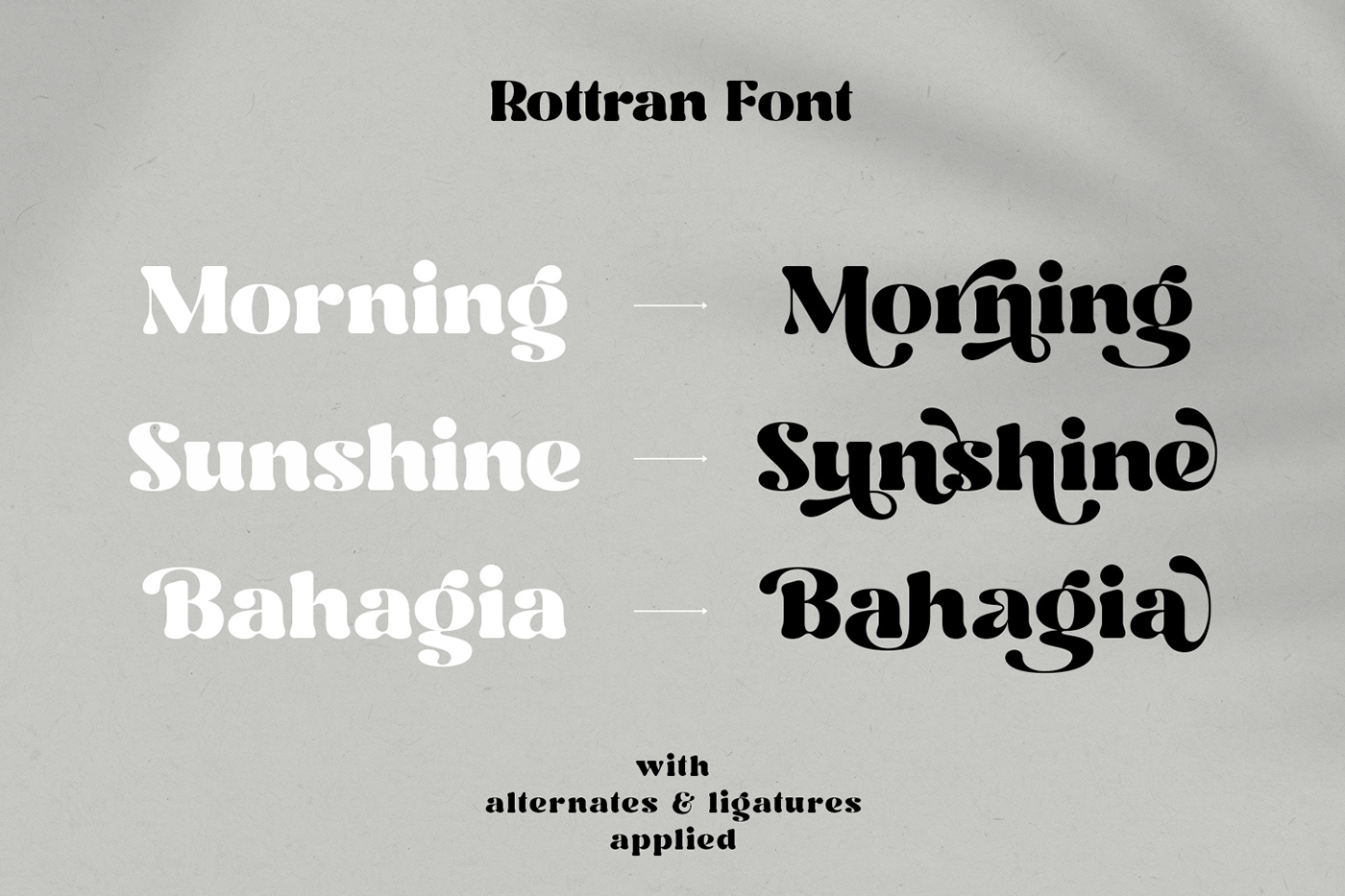
Rottran is a rounded serif font from Eka Hermawan that includes over 100 alternates characters (PUA Encoded) and ligature characters. Rottran is a versatile font and is suitable for lots of different projects like logo design, branding, posters, magazines, labels, merchandise, invitations, advertising, and so much more!
OpenType support
Playful to use (with ligature & alternates options)
Multilingual support
PUA Encoded